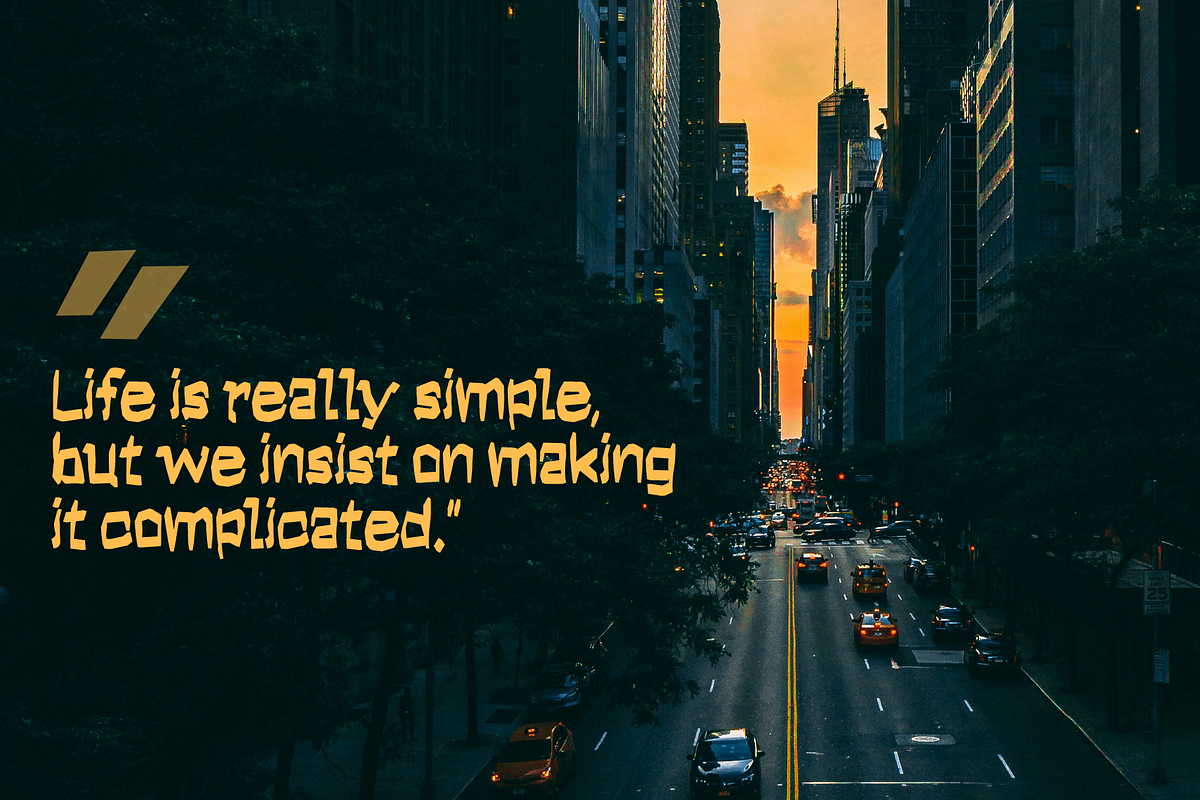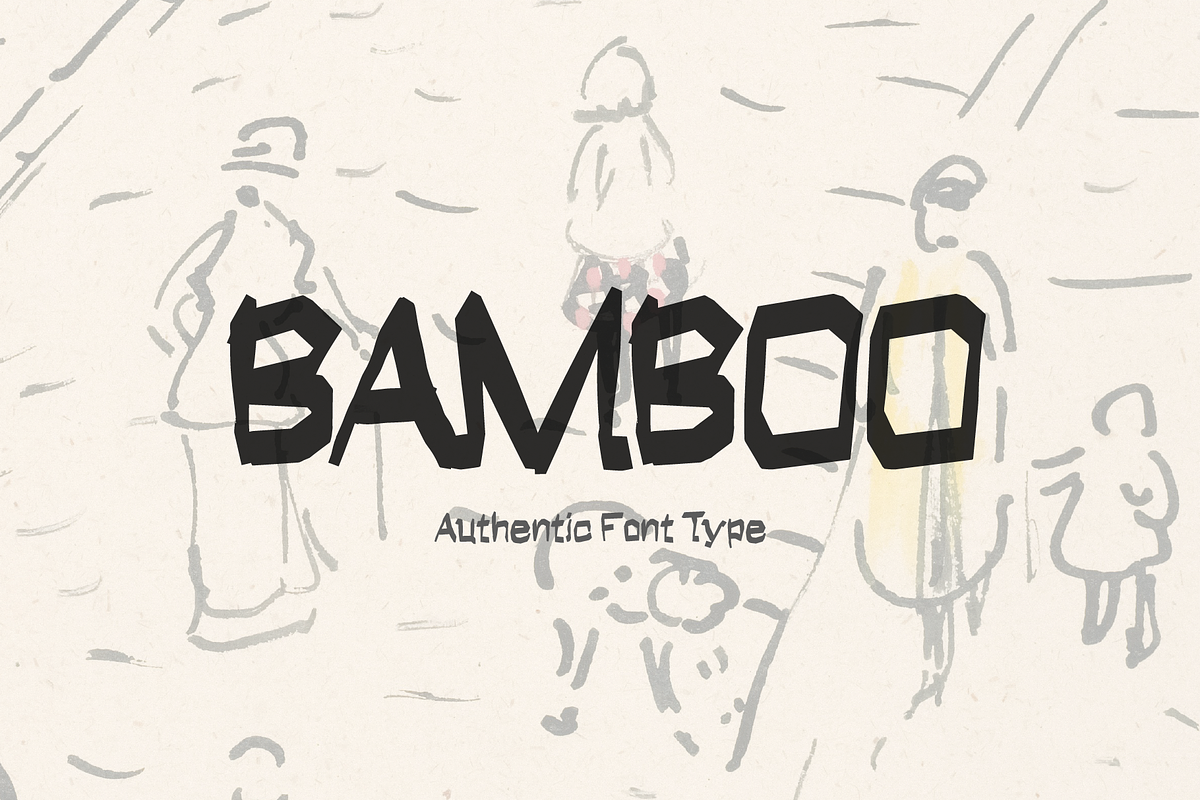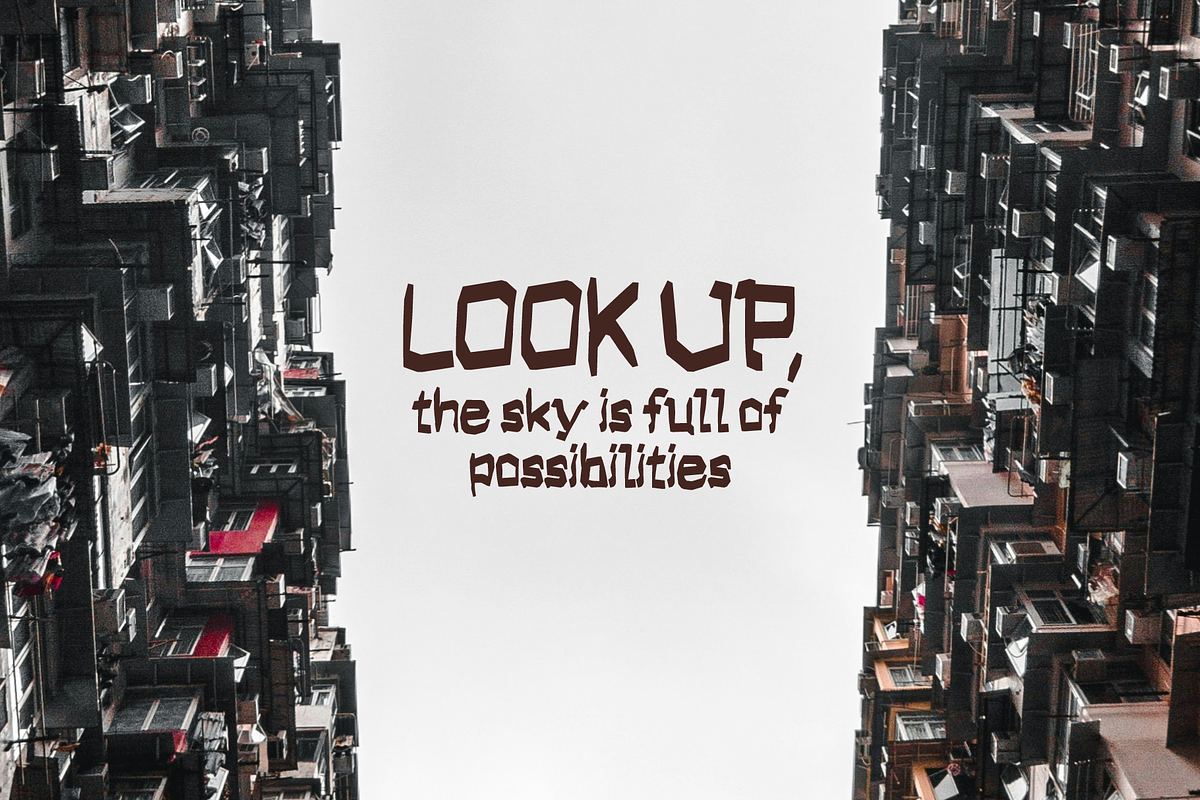
Bamboo
About the Product This font is presented with a unique and natural style, featuring beautiful, random strokes. The Bamboo font goes beyond ordinary scripts, offering a perfect touch of uniqueness for contemporary design projects.